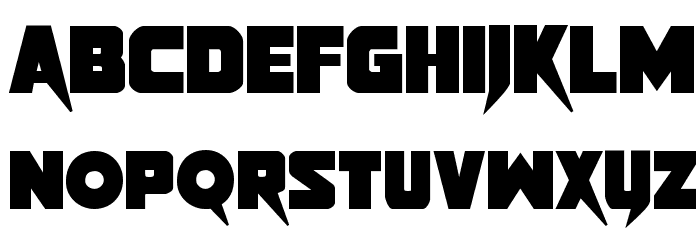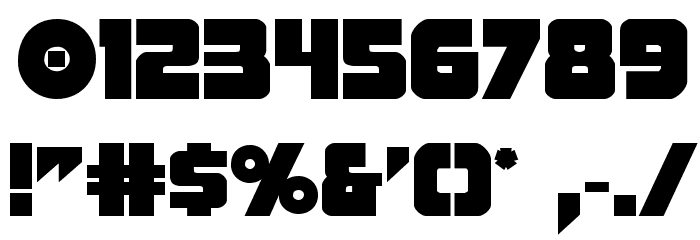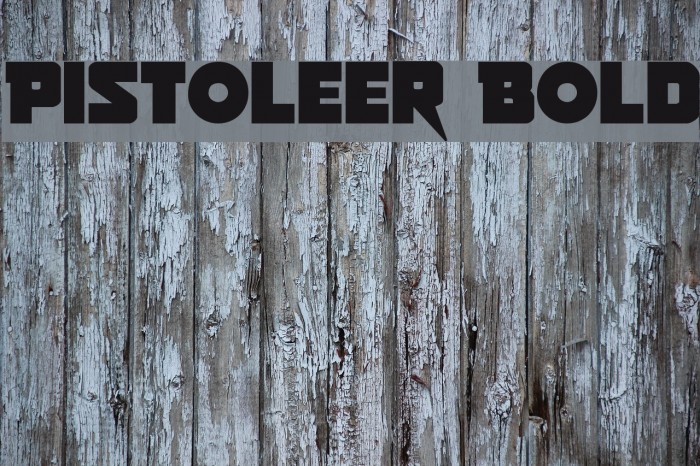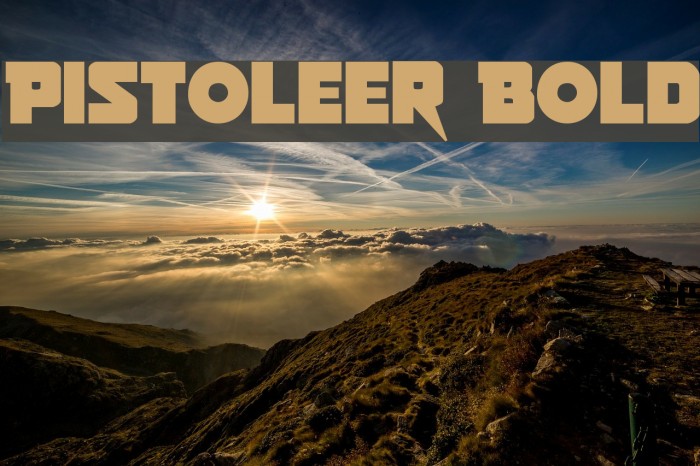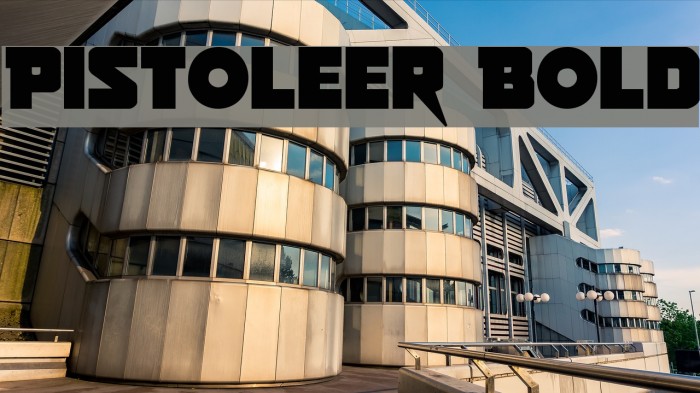
Pistoleer Bold Font
This bold and striking font features sharp, angular edges and a strong geometric structure. The characters are heavily stylized with unique cuts and pointed elements, giving it a dynamic and aggressive appearance. The uppercase letters are particularly prominent, with a consistent weight and width that convey a sense of power and authority. The numbers and special characters maintain the same boldness and angular design, ensuring a cohesive look across all glyphs. This font is designed to capture attention and make a statement, suitable for projects that require a bold visual impact.
A bold, angular font with sharp edges and a strong geometric style.
- Proposed Projects: Ideal for posters, logos, video game titles, and any design needing a bold, impactful typeface.